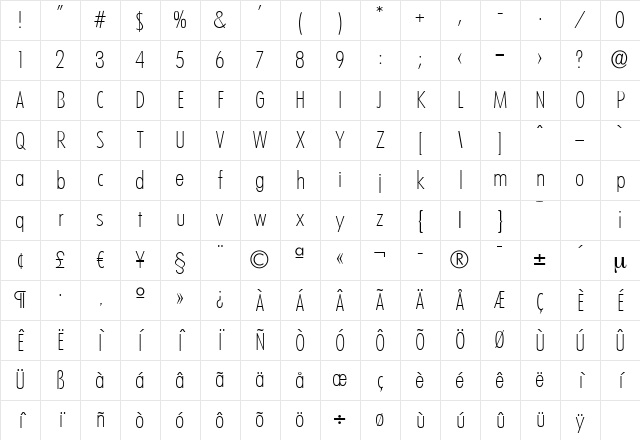
Complete PeterBeckerCond-ExtraLight Regular glyph index. Displaying only characters natively supported by PeterBeckerCond-ExtraLight Regular font.
PeterBeckerCond-ExtraLight is a composed and adaptable typeface that performs quietly and consistently across a wide range of design contexts. Its slender proportions lend an understated elegance to any composition. Its narrow stance lets it pack a punch even in space-constrained designs.